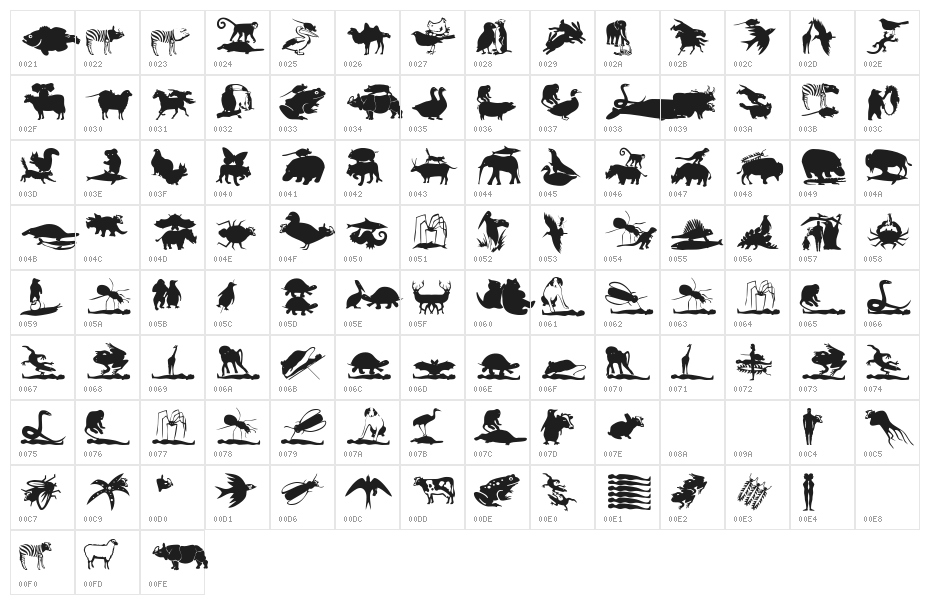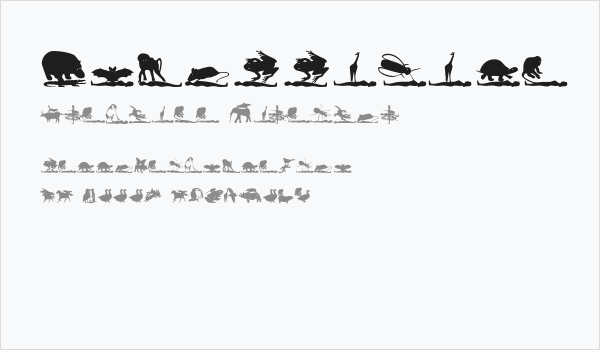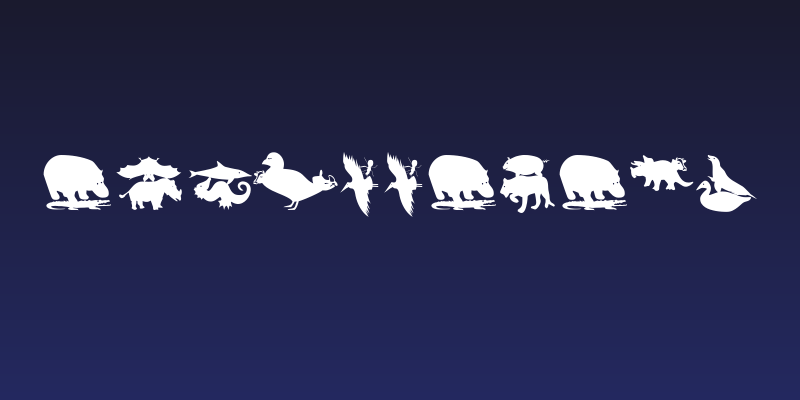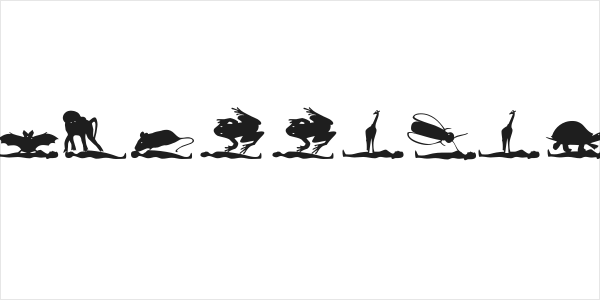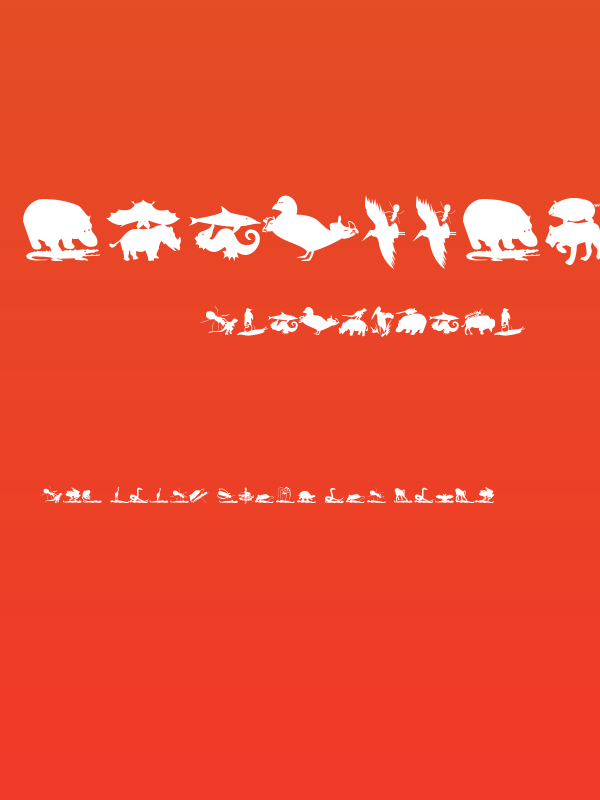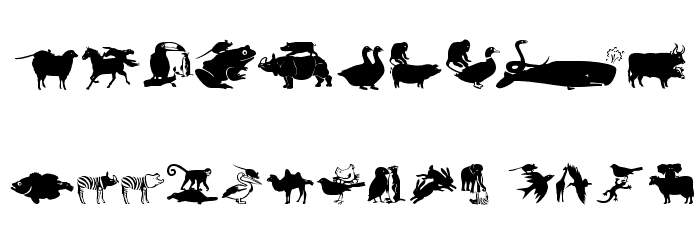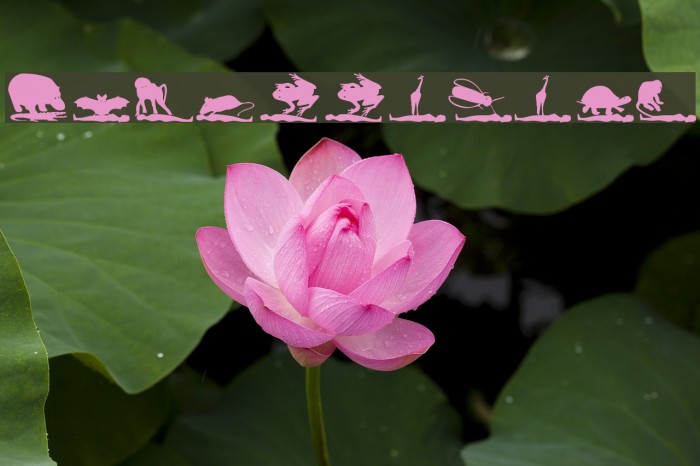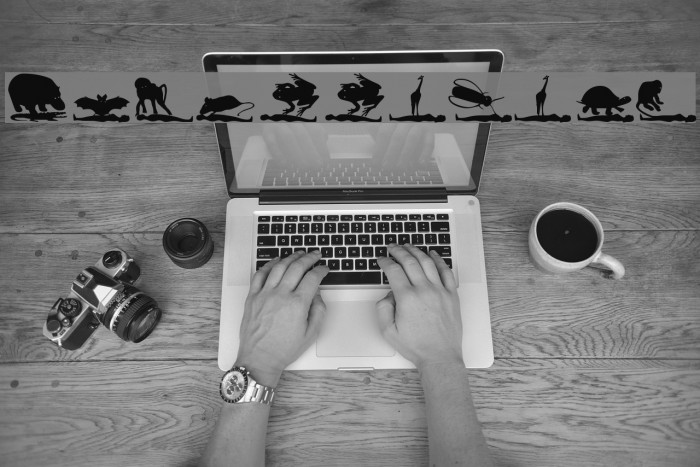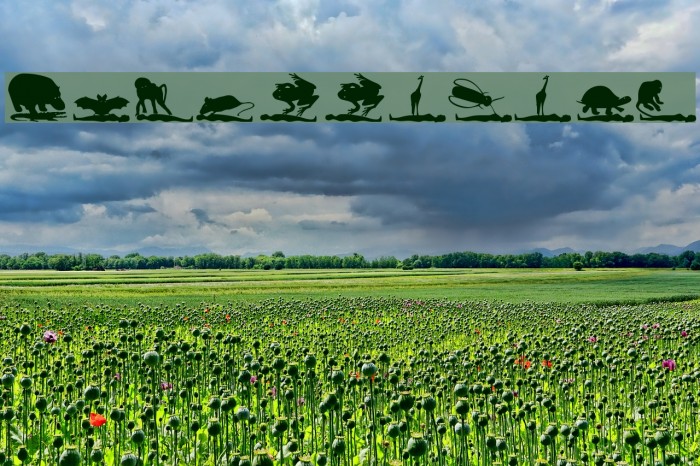
Impossibile Font
Impossibile Description
A highly decorative and playful typeface where each character is represented by a unique animal silhouette, blending letterforms with animal shapes for a whimsical and illustrative effect.
| Overall Style | Decorative, Whimsical, Illustrative |
| Use Case | Logos, Posters, Headlines, Educational Materials |
| Proposed Projects | Children’s books, educational materials, animal-themed posters, playful branding, creative event invitations. |